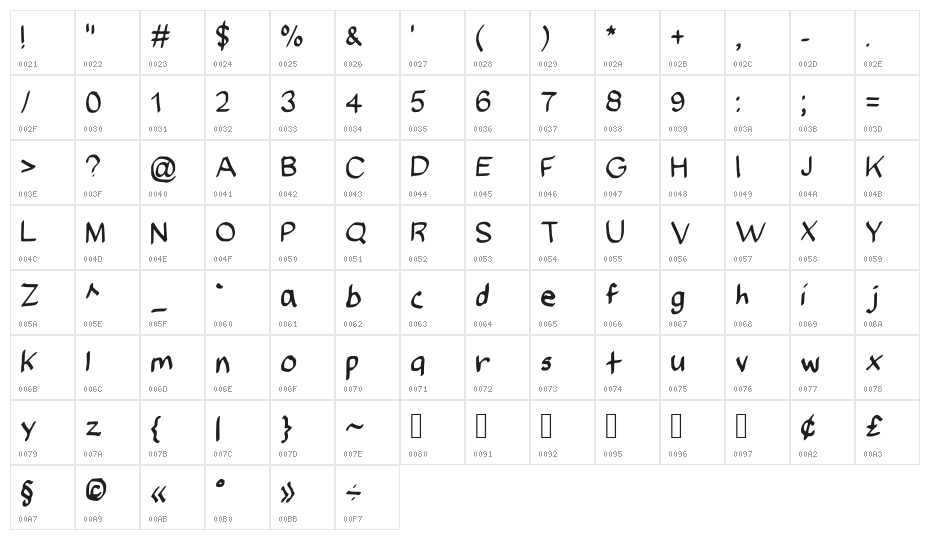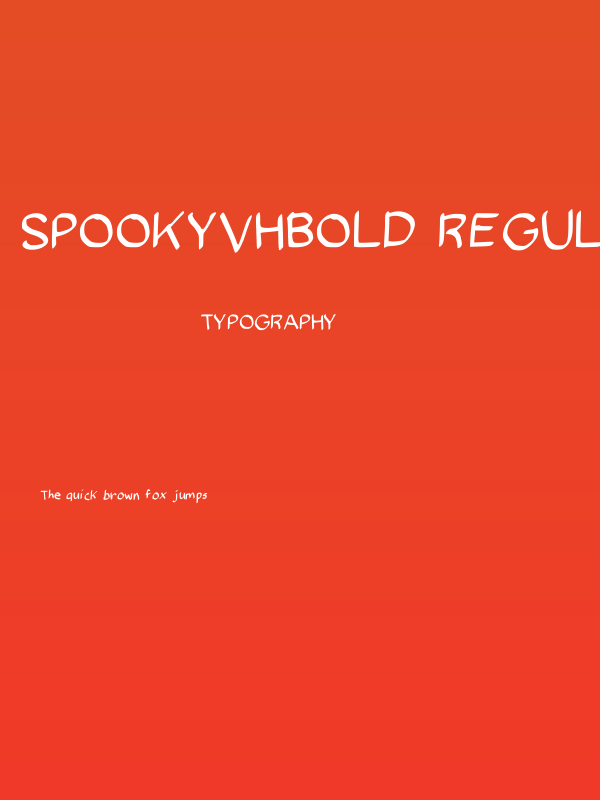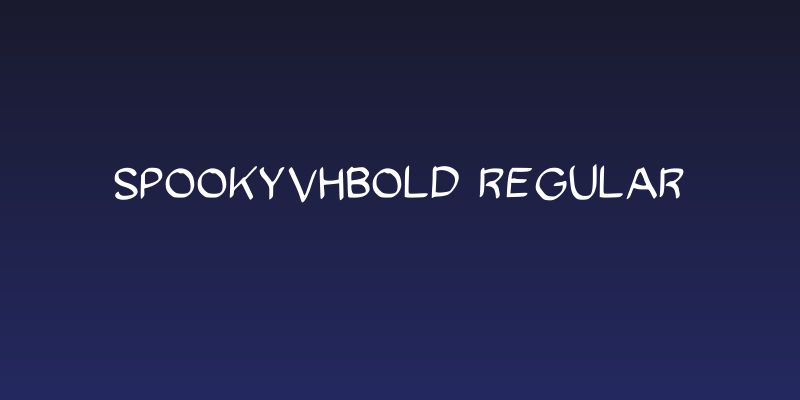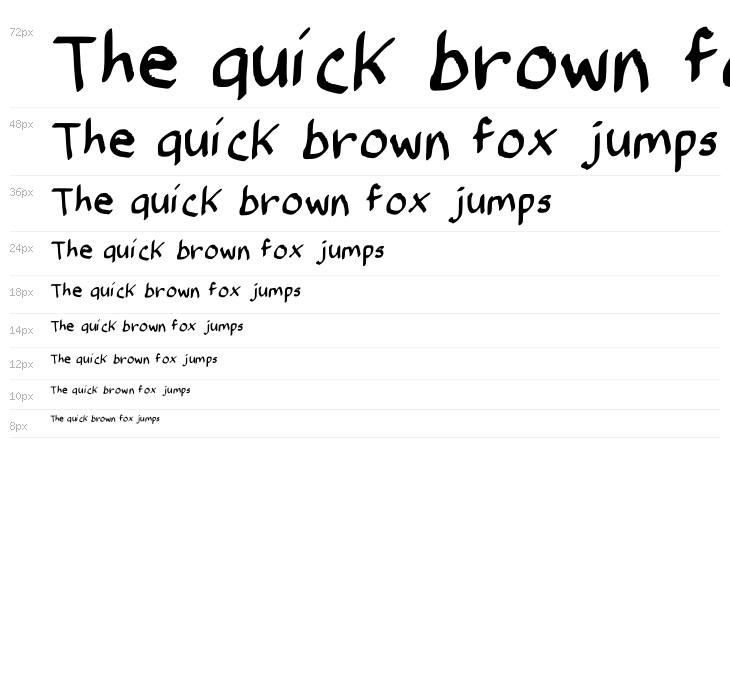
SpookyVHBold Regular Font
SpookyVHBold Regular Description
This font features a playful and slightly irregular design, reminiscent of handwritten text with a spooky twist. The uppercase letters are bold and slightly tilted, giving a dynamic and energetic feel. The lowercase letters maintain a consistent style, with rounded edges and a casual appearance. Numbers and special characters follow the same playful theme, making the font suitable for creative and informal projects. The overall look is both whimsical and bold, making it perfect for Halloween-themed designs or any project that requires a touch of fun and creativity.
| Proposed Projects | Ideal for Halloween invitations, themed posters, children's book covers, and playful branding. |